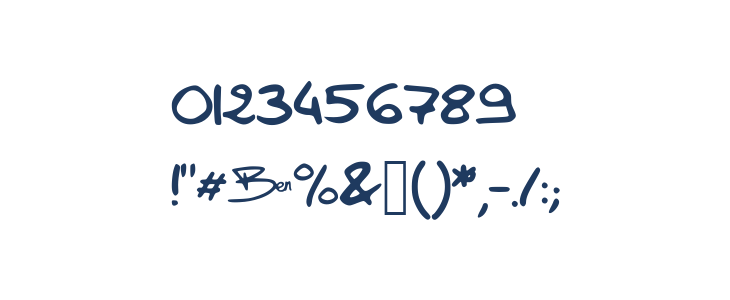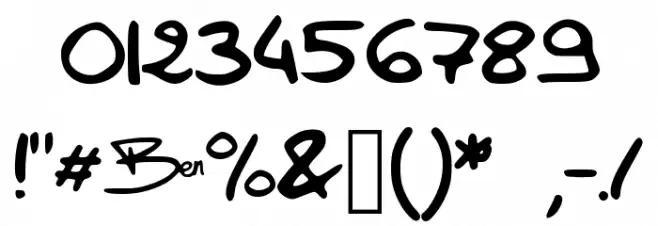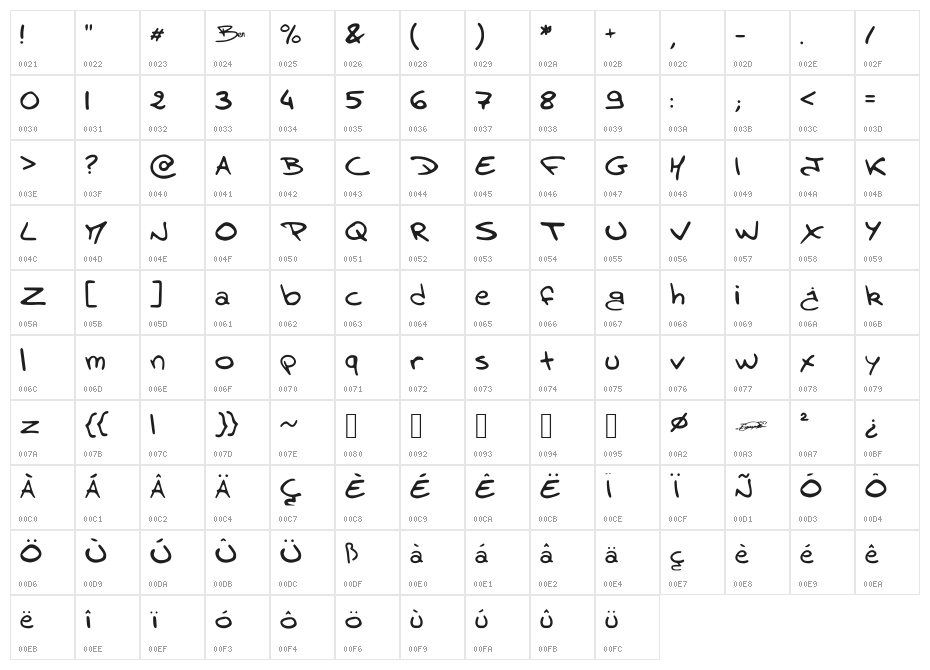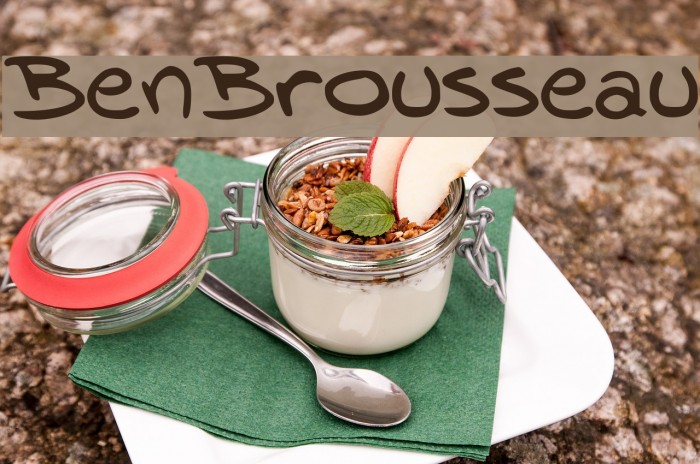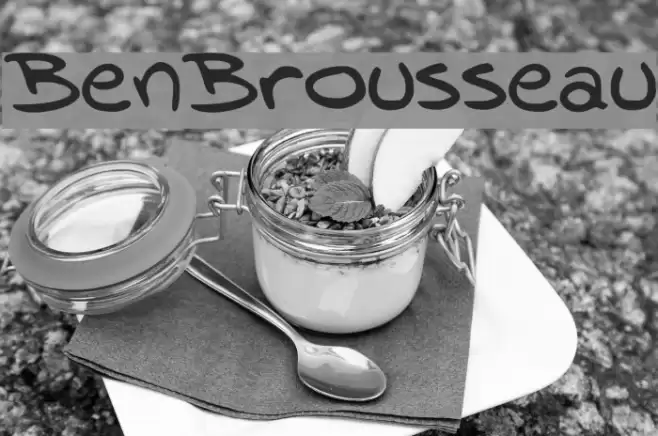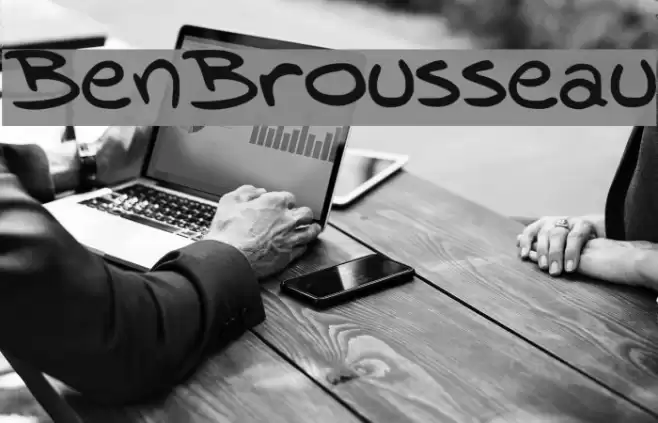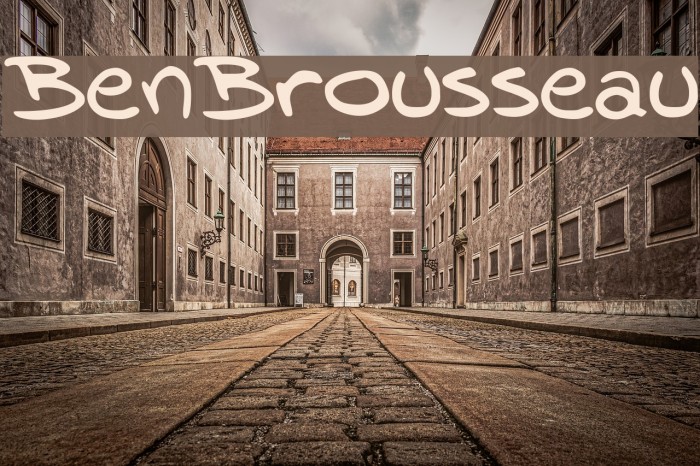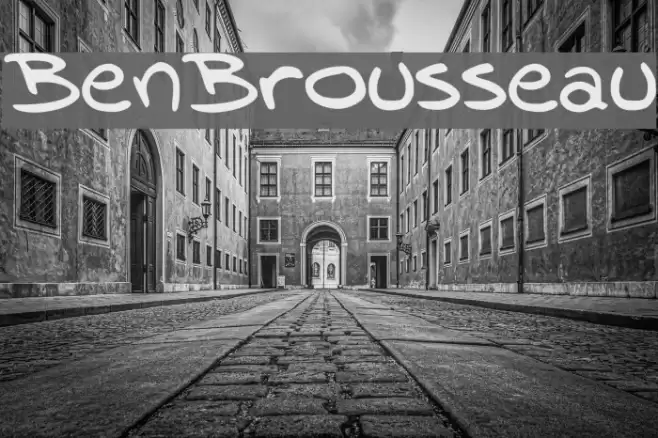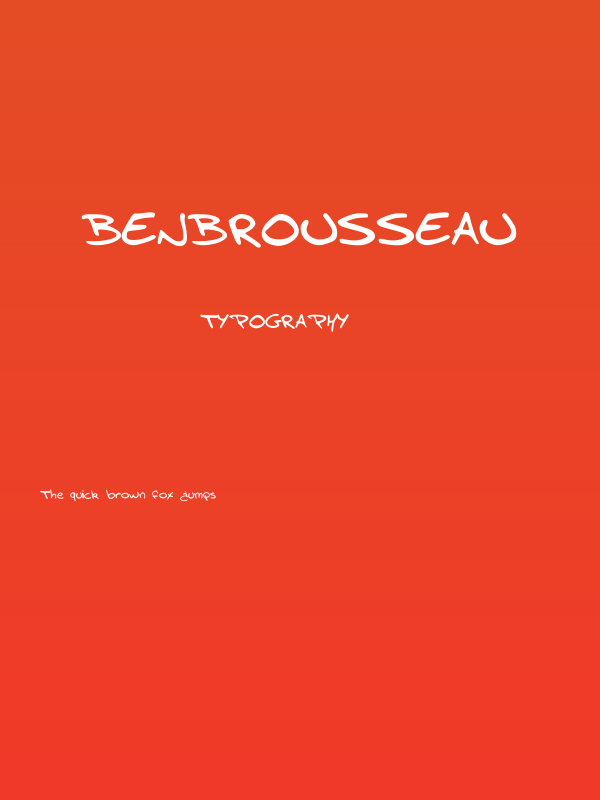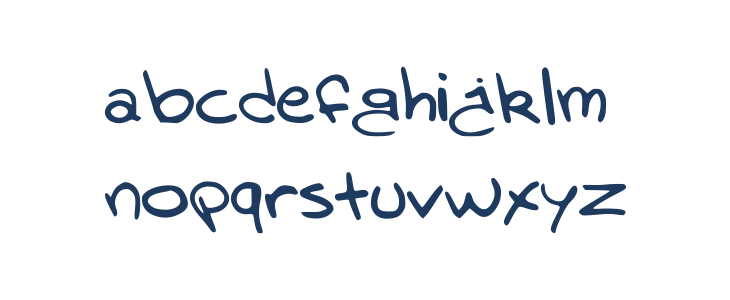
BenBrousseau Font
BenBrousseau Description
This font features a playful and dynamic style with a handwritten appearance. The characters are slightly slanted, giving a sense of movement and energy. The strokes are bold and rounded, with a consistent thickness throughout, contributing to a cohesive and friendly look. The uppercase letters are distinct with unique curves and angles, while the lowercase letters maintain a more uniform and approachable form. Numbers and special characters follow the same stylistic approach, ensuring versatility across different uses. This font is ideal for projects that require a personal touch or a casual, informal tone.
| Proposed Projects | Ideal for greeting cards, children's books, playful branding, and casual invitations. |